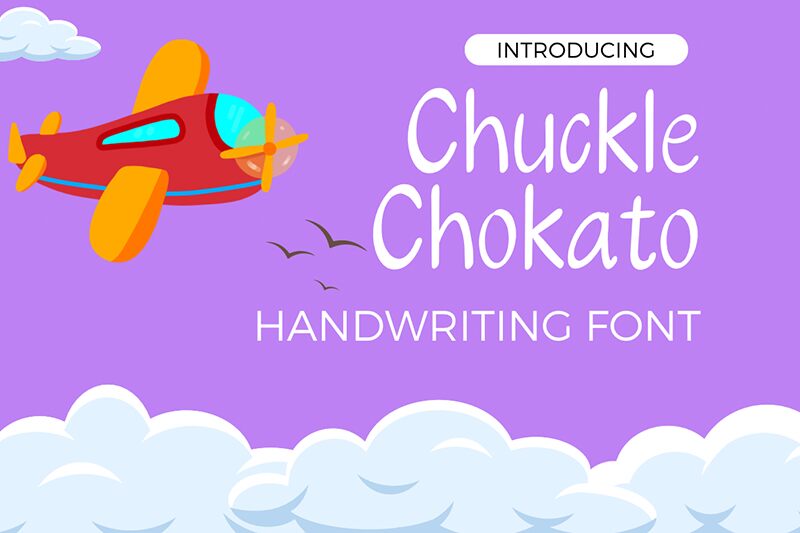
Chuckle Chokato font by Insan Perkasya is a free handwritten font that adds a friendly and modern touch to your project. The casual characters offer a handwritten feel, making them versatile for contemporary applications in branding or casual communication. Approachable and informal, the font is easy to pair with other fonts or to use on its own.
The aesthetic feel of the font makes it a perfect choice for branding, social media content, book covers, digital ads, posters, packaging, and more. On the web, it can be used for titles or body text on blog posts, magazine articles, or e-commerce stores.